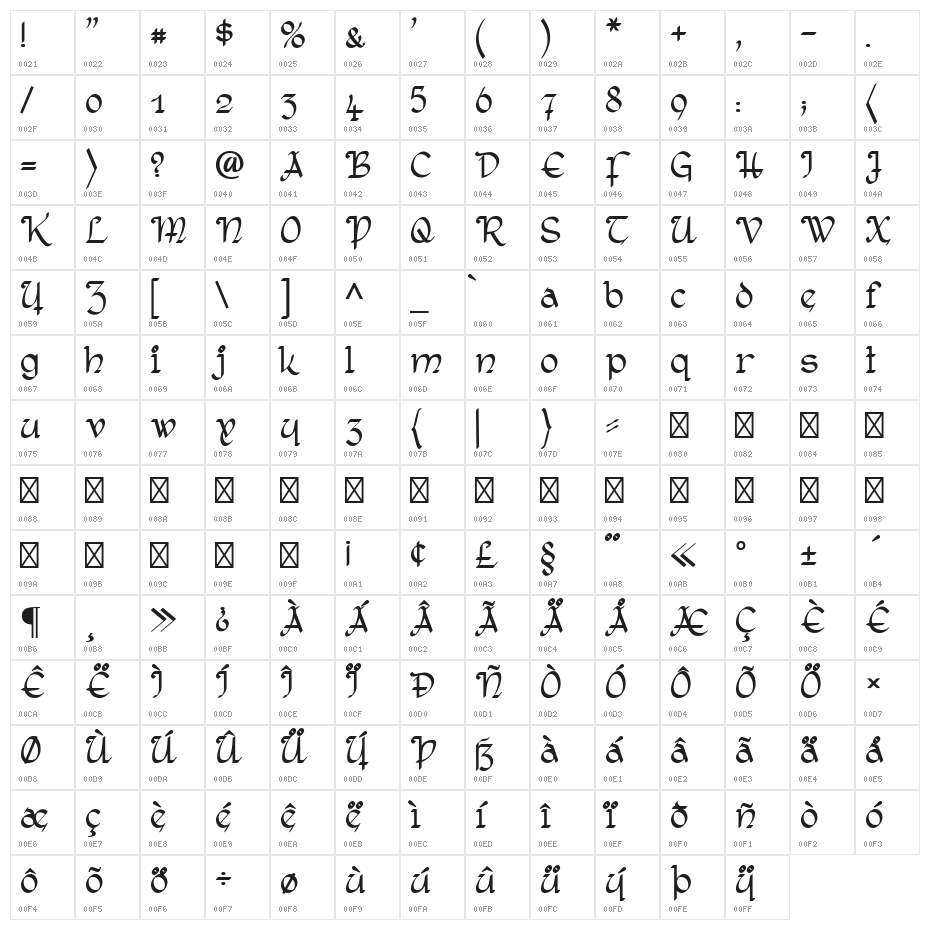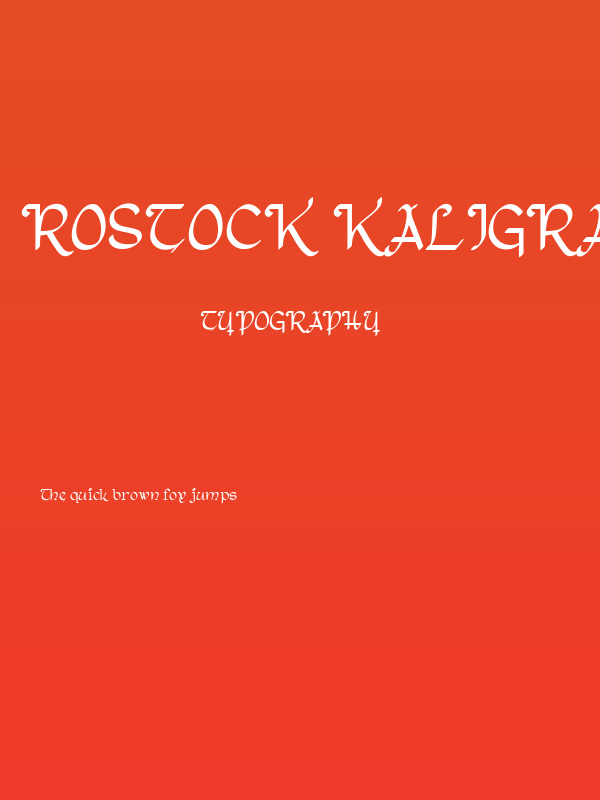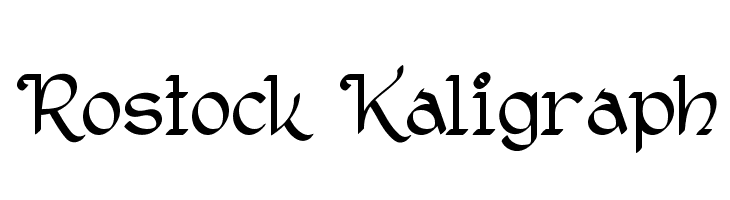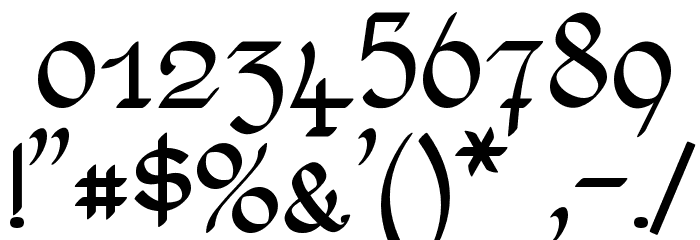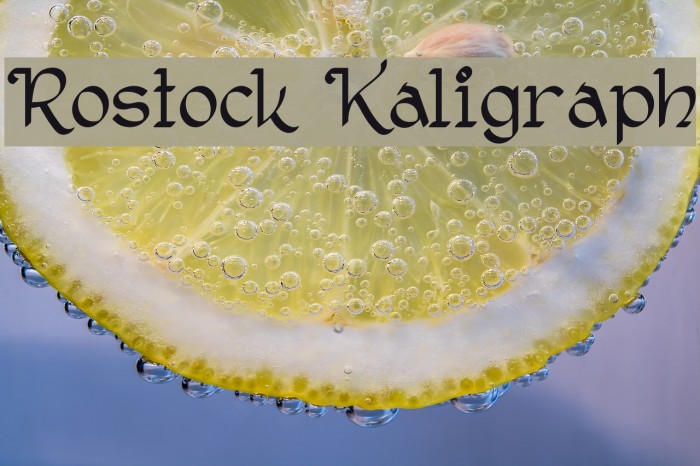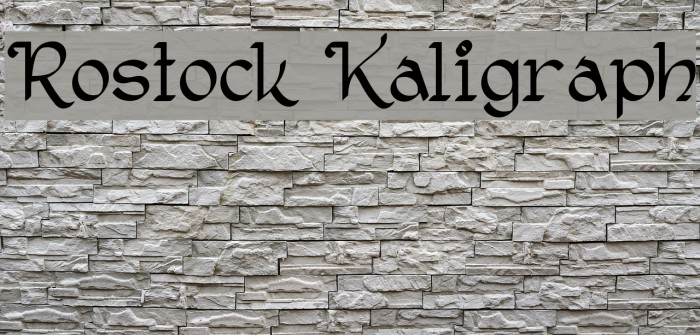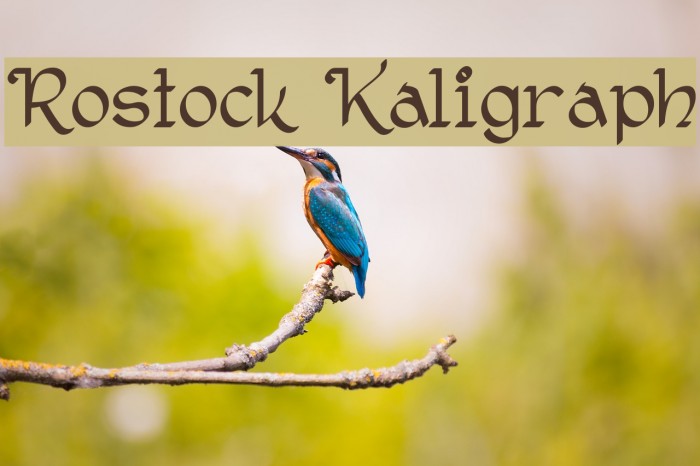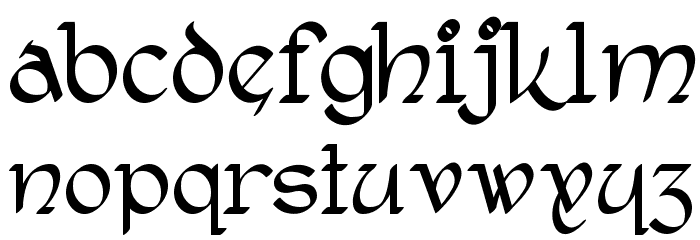
Rostock Kaligraph Font
Rostock Kaligraph Description
This font features a classic calligraphic style with elegant, flowing strokes and a distinct flair. The uppercase letters are characterized by their ornate and decorative elements, while the lowercase letters maintain a smooth and consistent flow. The numerals are bold and slightly stylized, complementing the overall aesthetic. Special characters are crafted with the same attention to detail, adding a touch of sophistication. The font's design is reminiscent of traditional handwriting, making it suitable for projects that require a personal and artistic touch.
| Overall Style | Classic |
| Use Case | Logos, Invitations, Artistic projects |
| Proposed Projects | Ideal for wedding invitations, formal event programs, certificates, and artistic branding. |